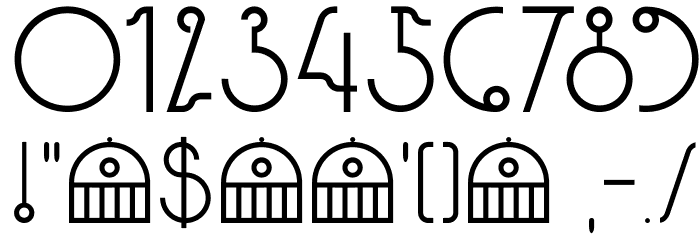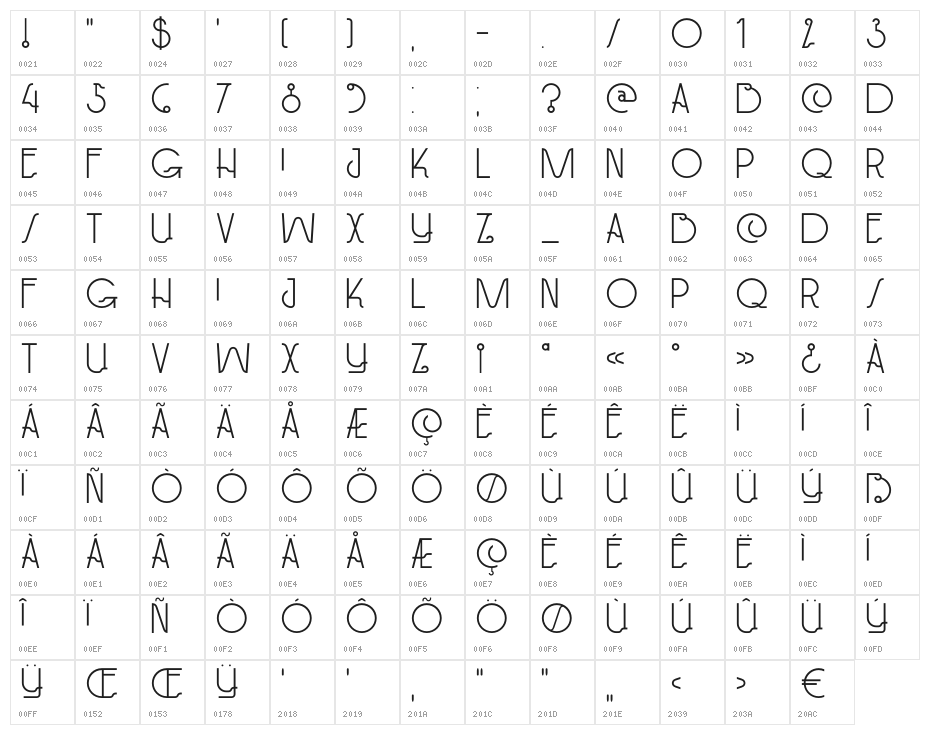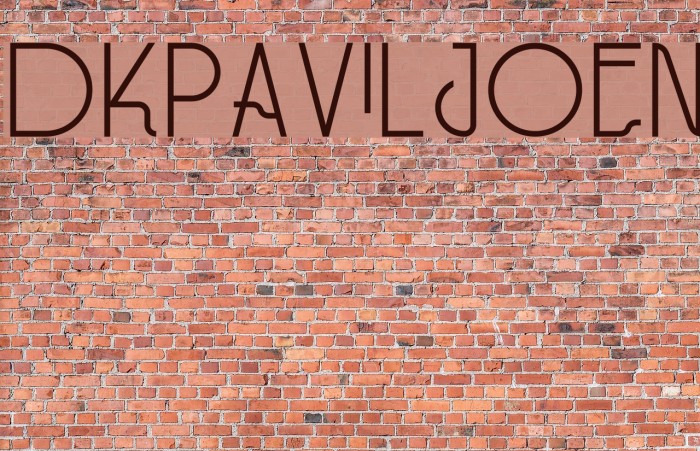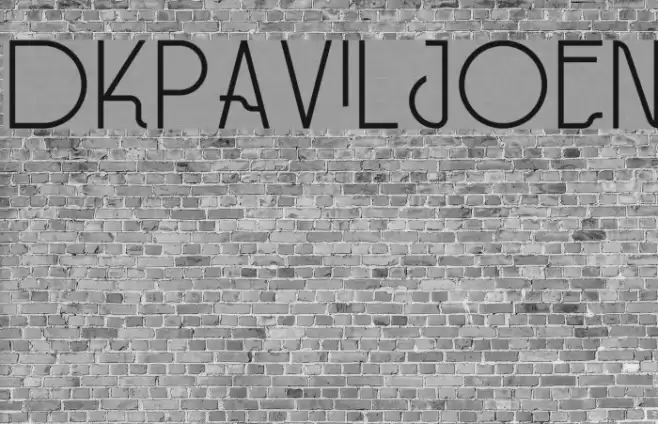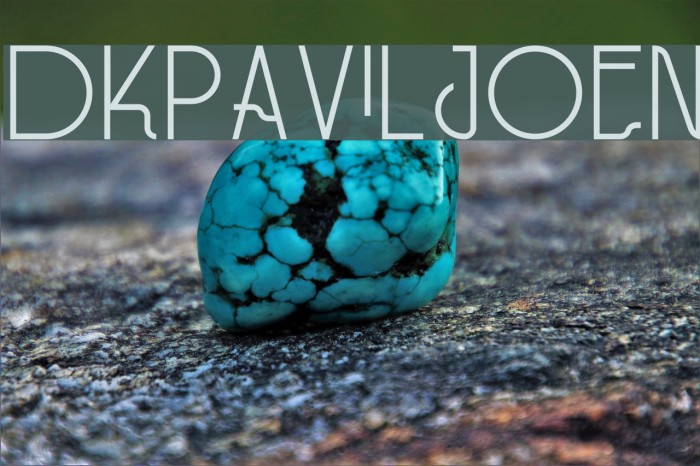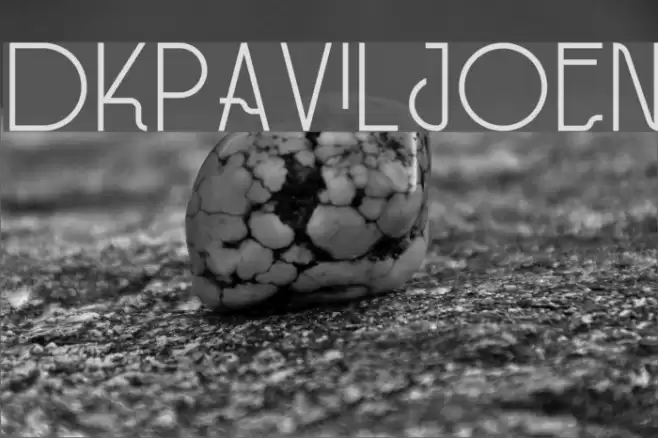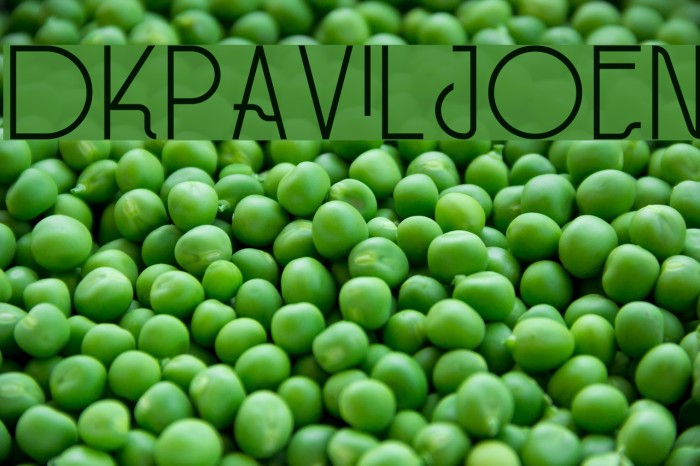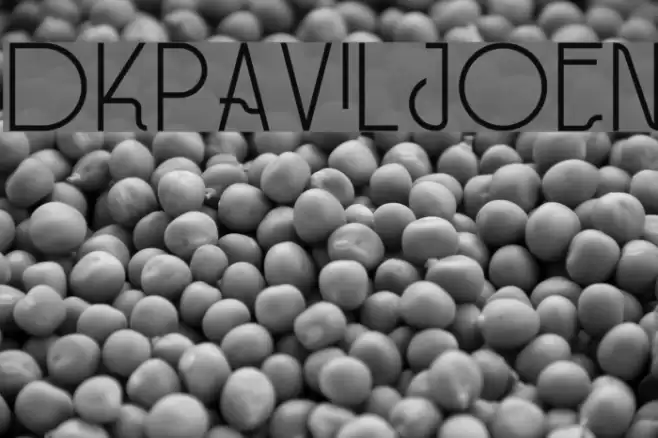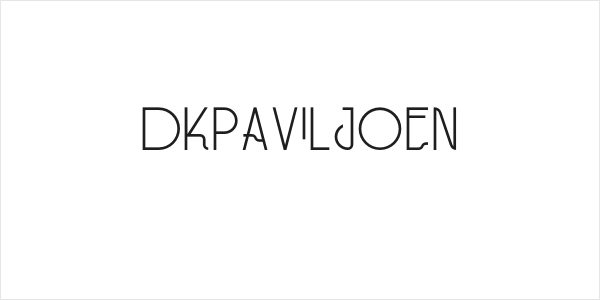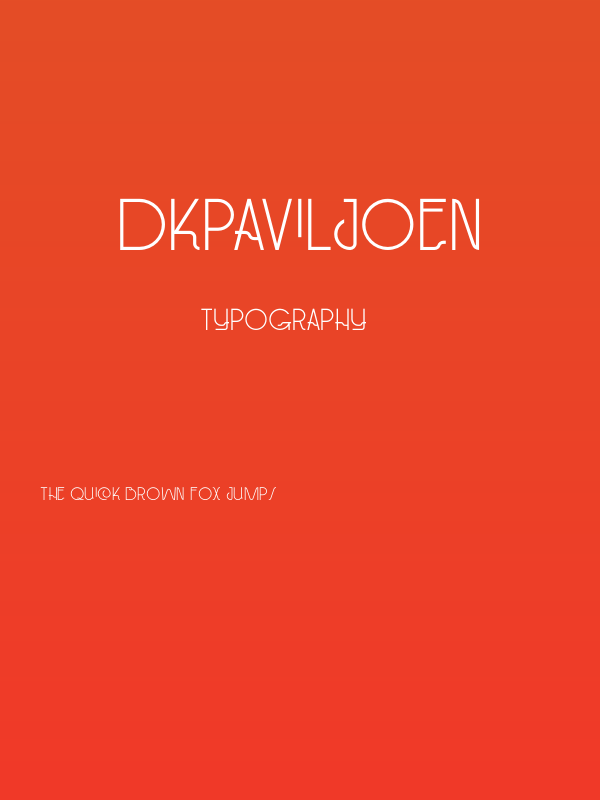
DKPaviljoen Font
DKPaviljoen Description
This font features a unique and modern design with a geometric and futuristic aesthetic. The characters are composed of clean, straight lines and circular elements, creating a distinct and eye-catching appearance. The uppercase and lowercase letters maintain a consistent style, with some characters incorporating unexpected angles and curves that add to the font's originality. The numerals and special characters follow the same design principles, ensuring a cohesive look across all glyphs. This font's innovative style makes it suitable for projects that require a contemporary and artistic touch.